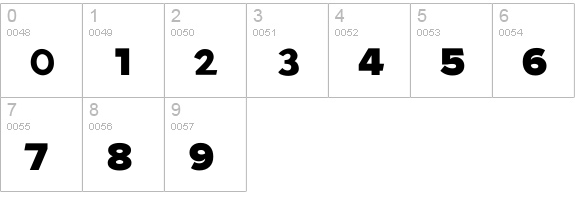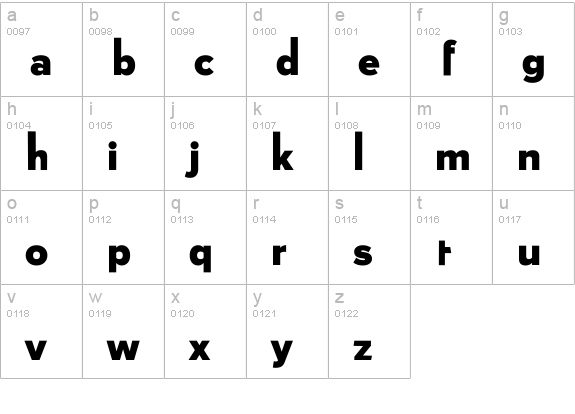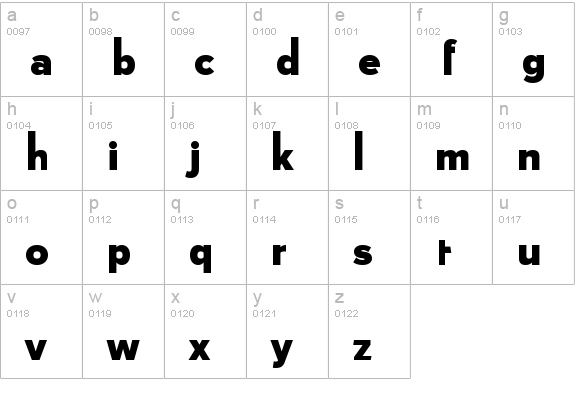
The 20th Century Fox TV font is a classic and iconic typeface that captures the essence of timeless elegance and sophistication. With its sleek lines and sharp angles, this font exudes a sense of modernity and refinement that is perfect for adding a touch of Hollywood glamour to any project. Whether you're working on a film poster, a branding project, or simply want to add a touch of nostalgia to your designs, the 20th Century Fox TV font is sure to make a statement.